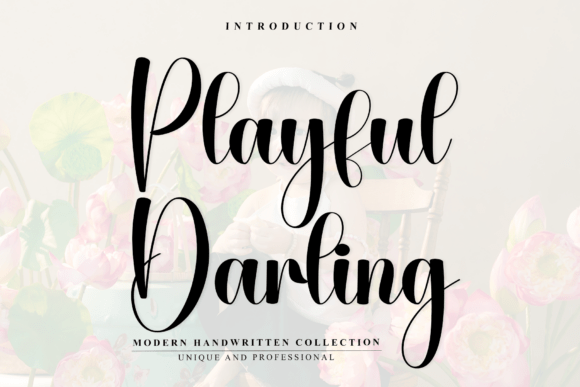
Introducing Playful Darling Font: The Epitome of Elegance and Sophistication
In the realm of typography, few fonts manage to strike a balance between elegance and playfulness. However, Playful Darling Font is an exception – a sophisticated handwritten script font that exudes refined elegance and stylish flair. This beautiful font is designed to bring a touch of sophistication and romance to various design projects, making it an ideal choice for designers and crafters alike.
Key Features of Playful Darling Font
- Flowing Curves and Seamless Connections: Playful Darling Font boasts flowing curves and seamless connections that capture the graceful rhythm of a calligrapher’s hand. This feature lends the font its unique, elegant appearance.
- Harmonious Balance of Decorative Swashes and Clear Letterforms: The font strikes a perfect balance between decorative swashes and clear letterforms, making it both beautiful and highly legible.
- Subtle Contrast in Stroke Thickness: The subtle contrast in stroke thickness adds movement and artistry to the font, giving it a timeless quality that feels equally contemporary.
Ideal Uses for Playful Darling Font
Playful Darling Font is versatile and can be used in a variety of design projects, including:
- Branding: Add a touch of elegance and sophistication to your brand’s identity with this beautiful font.
- Invitations: Create stunning invitations for weddings, parties, and other special events.
- Stationery: Elevate your stationery designs with the font’s refined and stylish appearance.
- Packaging: Use Playful Darling Font to add a touch of luxury and sophistication to your product packaging.
- Romantic and Modern Designs: The font’s unique blend of elegance and playfulness makes it perfect for designs that require a romantic yet modern touch.
Typography Tips for Using Playful Darling Font
To get the most out of Playful Darling Font, consider the following typography tips:
- Pair with Neutral Fonts: Pair the font with neutral fonts to create a striking contrast and make your design stand out.
- Experiment with Swashes: Take advantage of the font’s decorative swashes to add a touch of elegance and sophistication to your design.
- Adjust Font Size: Experiment with different font sizes to create visual hierarchy and emphasize important elements in your design.
- Play with Colors: Try out different colors to find the perfect match for your design and make the font shine.
Benefits of Using Playful Darling Font
Playful Darling Font offers numerous benefits to designers and crafters, including:
- Unique and Elegant Appearance: The font’s unique and elegant appearance sets it apart from other fonts and makes it perfect for designs that require a touch of sophistication.
- High Legibility: The font’s clear letterforms and harmonious balance of decorative swashes make it highly legible, even at small font sizes.
- Timeless Quality: The font’s subtle contrast in stroke thickness and flowing curves give it a timeless quality that feels equally contemporary.
Playful Darling Font vs. Other Script Fonts
While there are many script fonts available, Playful Darling Font stands out from the crowd due to its unique features and benefits. Here’s a comparison with other script fonts:
- More Elegant than Brush Script Fonts: Playful Darling Font is more elegant and refined than brush script fonts, making it perfect for designs that require a touch of sophistication.
- More Legible than Calligraphic Fonts: The font’s clear letterforms and harmonious balance of decorative swashes make it more legible than calligraphic fonts.
- More Versatile than Handwritten Fonts: Playful Darling Font is more versatile than handwritten fonts and can be used in a variety of design projects, from branding to packaging.
What Designers Say About Playful Darling Font
Don’t just take our word for it – here’s what designers who have used Playful Darling Font have to say: